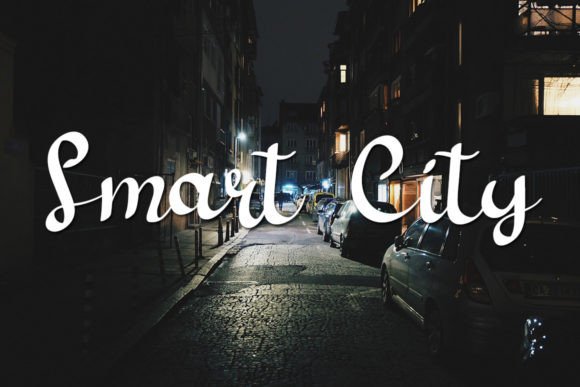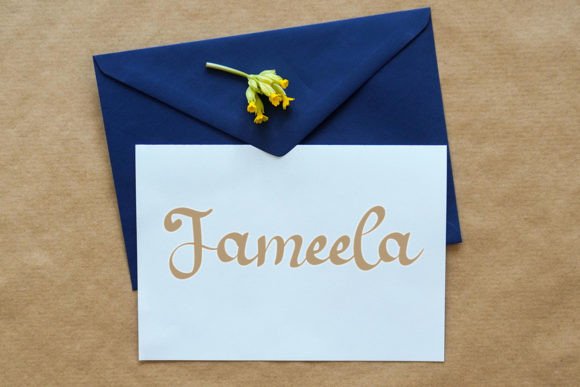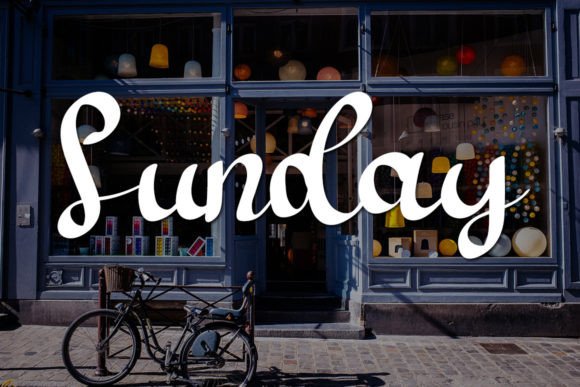
Sandrise Font
About Sandrise Font
Introducing Sandrise, a beautiful and sweet font that brings a fresh, clean, and elegant vibe to your projects. Designed to be incredibly versatile, this font looks amazing in a wide array of projects, both formal and informal. It adds an incredibly joyful touch to your designs and is crafted to simplify your design process, making your business or creative endeavors look more beautiful.
The fresh and clean aesthetic of Sandrise ensures that it can seamlessly integrate into a variety of design contexts. Whether you’re working on formal business materials, informal creative projects, or anything in between, this font brings an element of beauty and sophistication.
The joyful touch of Sandrise adds a sense of positivity and vibrancy to your designs. It’s not just a font; it’s a design element that enhances the overall visual appeal, making your projects stand out with elegance and charm.
The simplicity of Sandrise makes it easy to incorporate into your designs, offering a clean and streamlined look. Whether used in branding, marketing materials, or creative projects, this font adds a touch of beauty that captures attention.
In summary, Sandrise is a font designed to elevate your designs by bringing beauty and simplicity. Download Sandrise now and explore how it can add a fresh and elegant touch to your business or creative projects. With its joyful and versatile style, Sandrise is ready to make your designs look more beautiful and engaging.